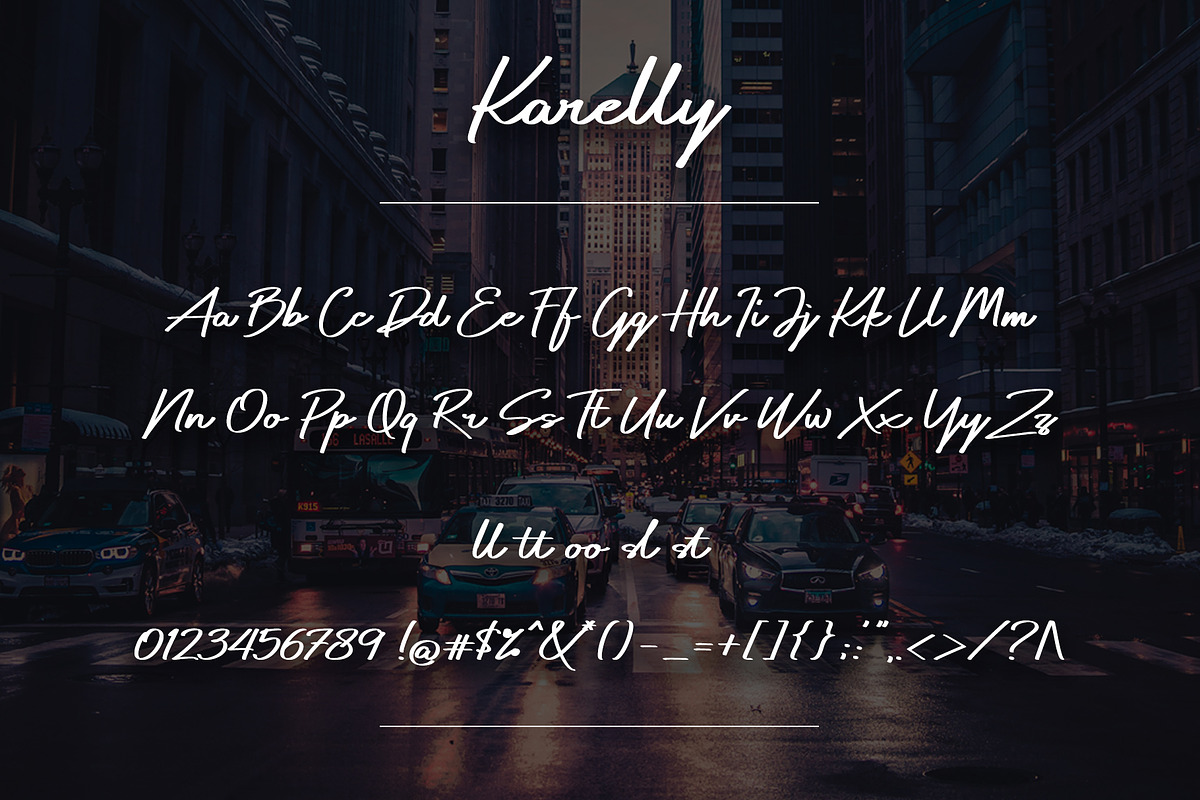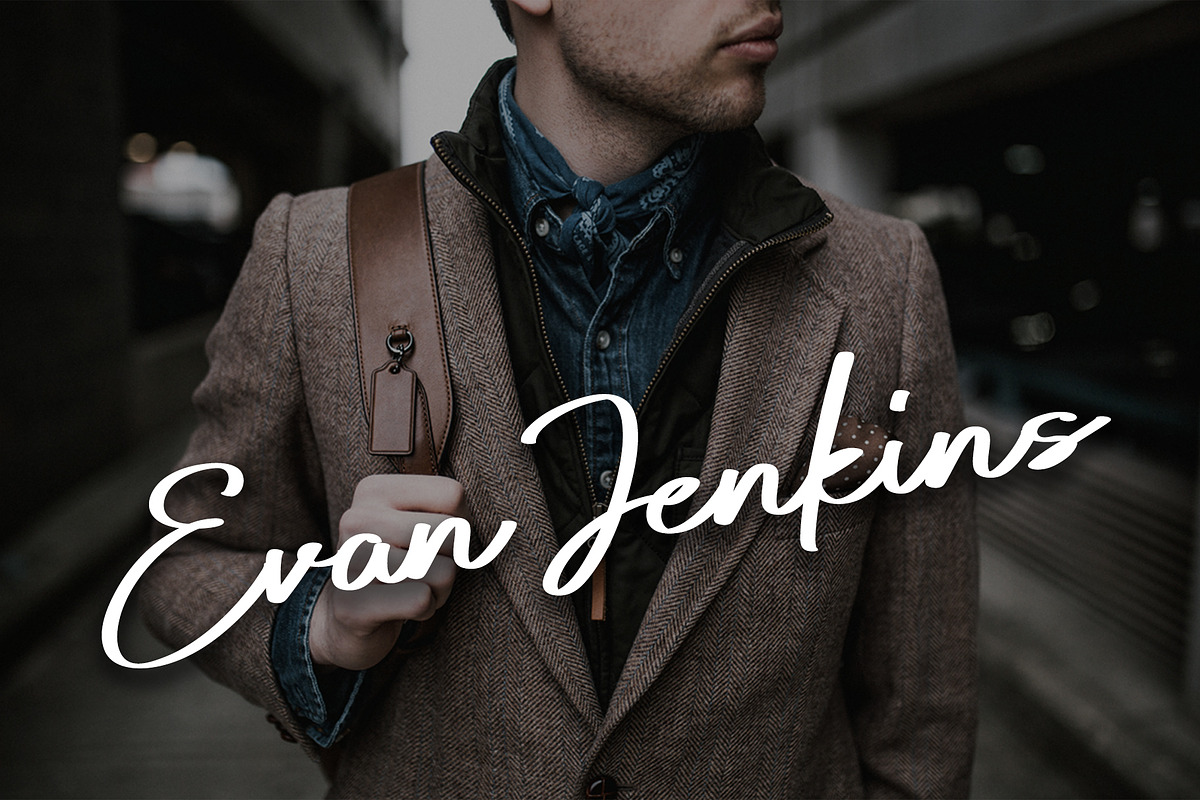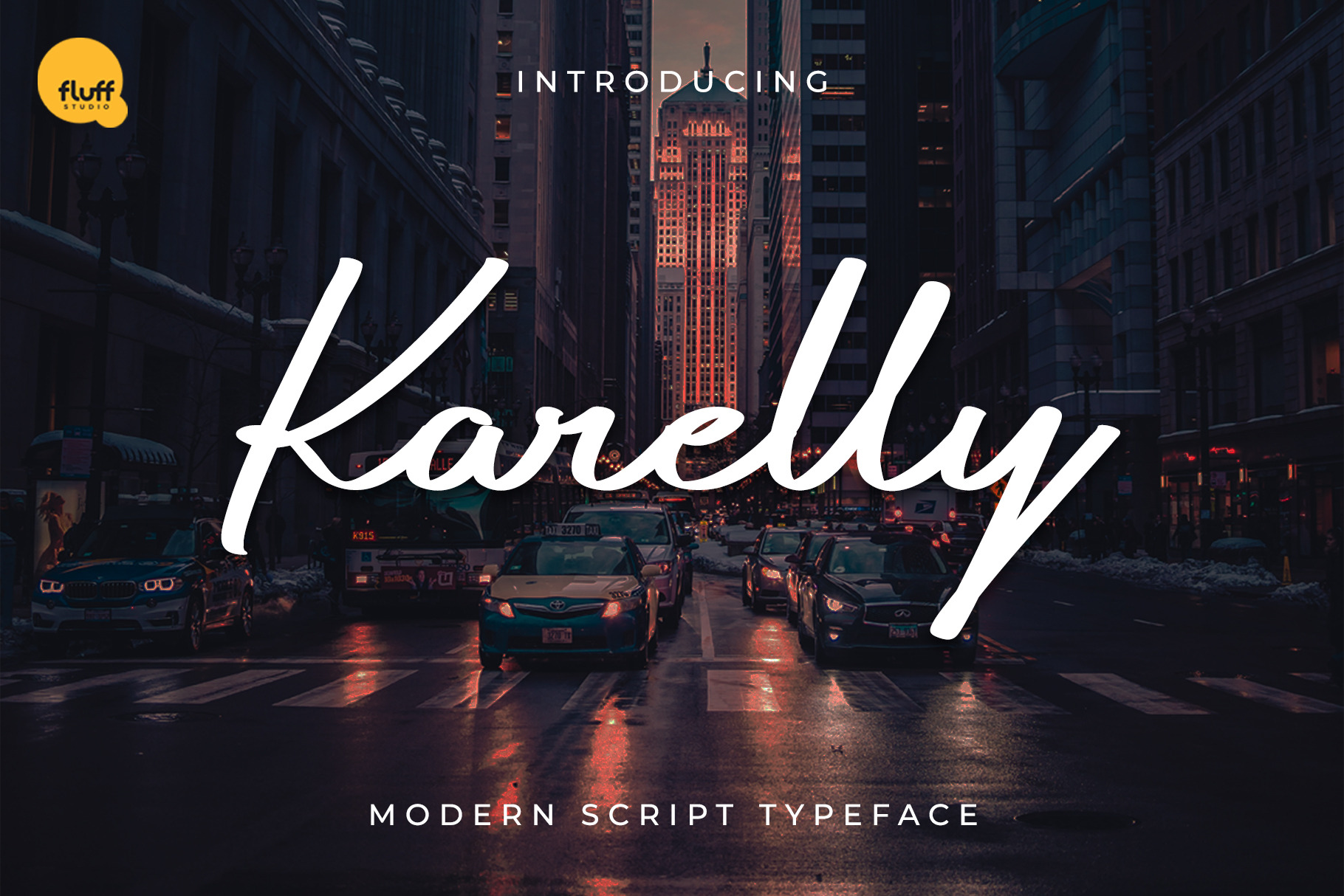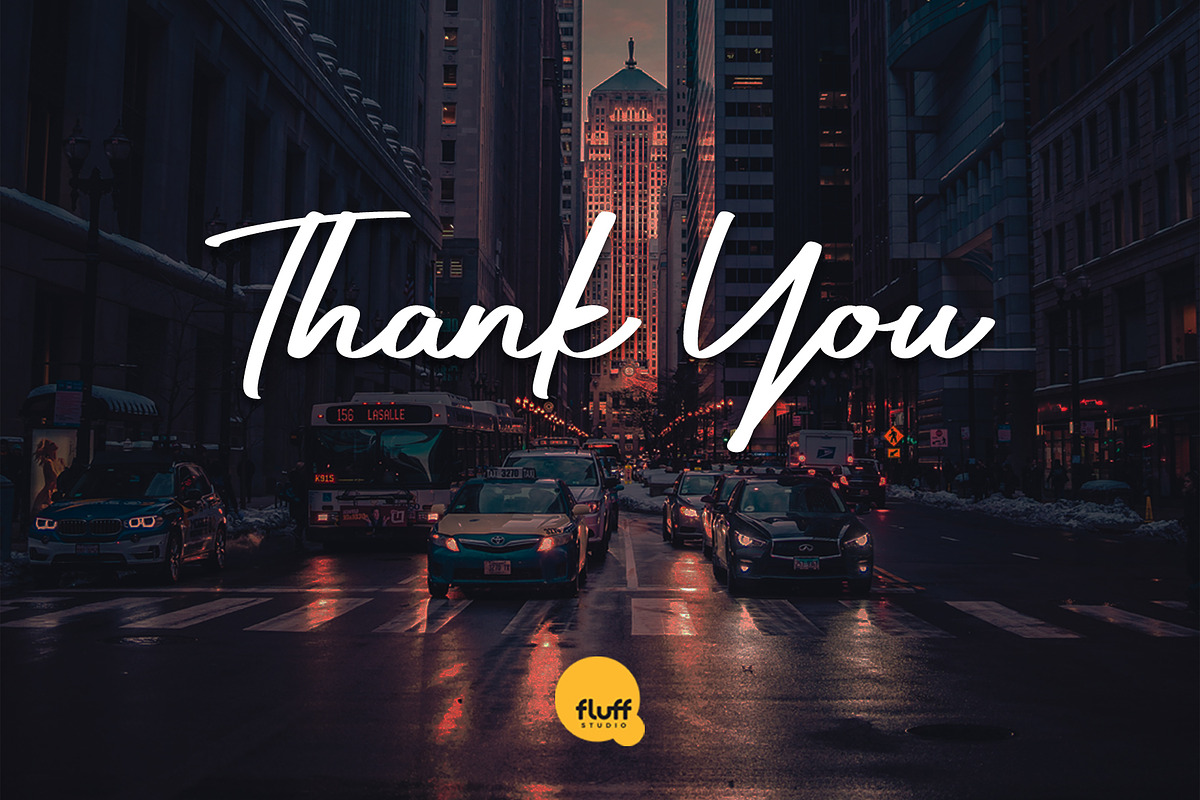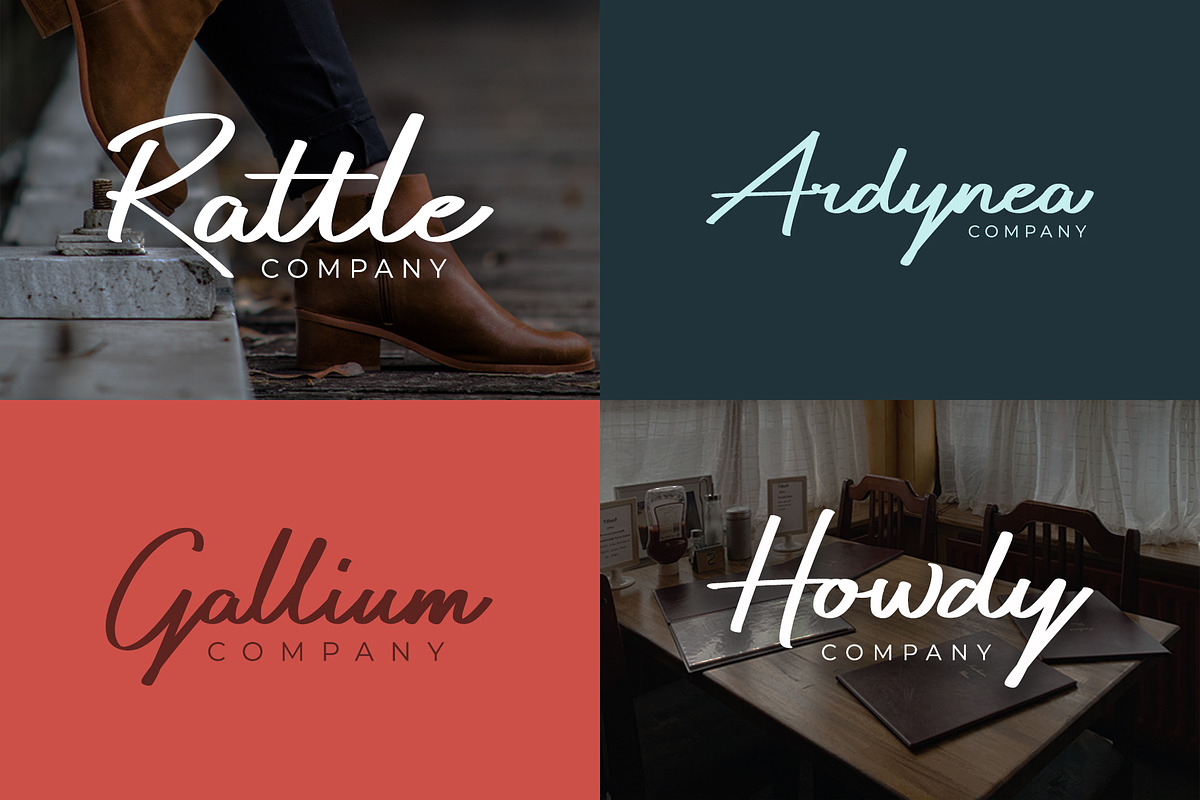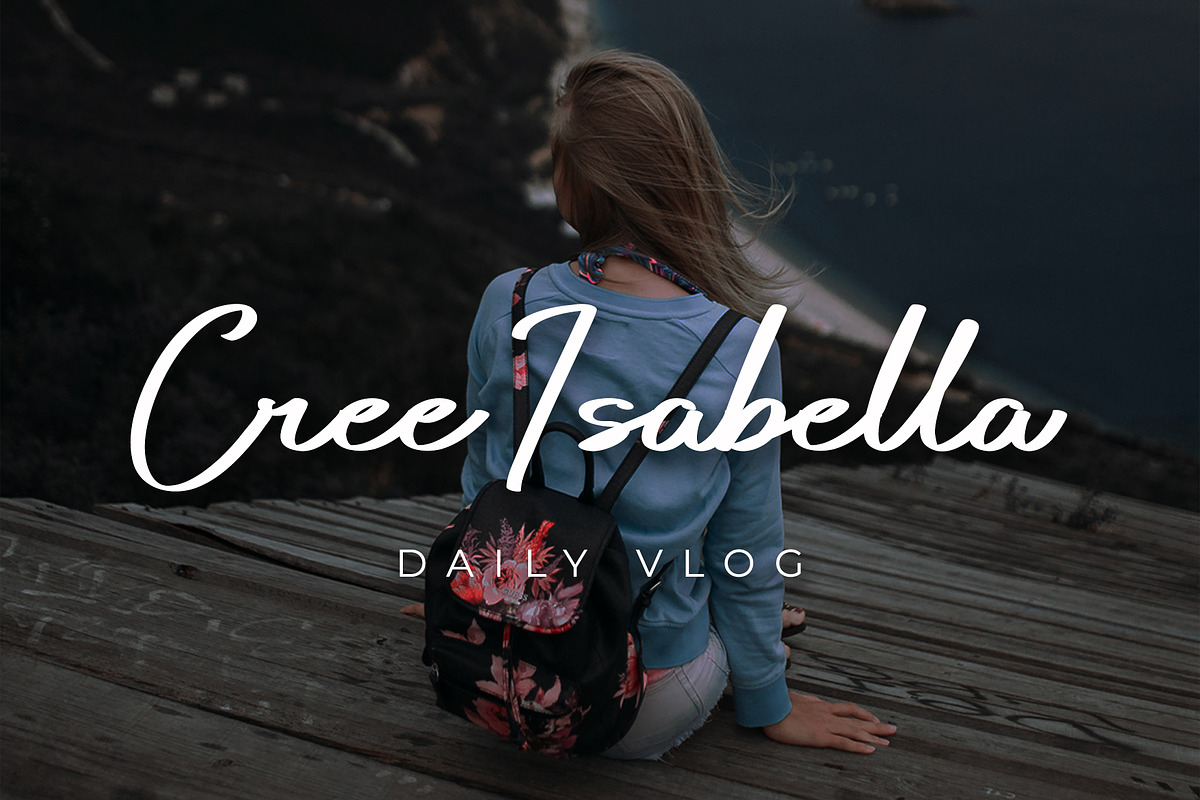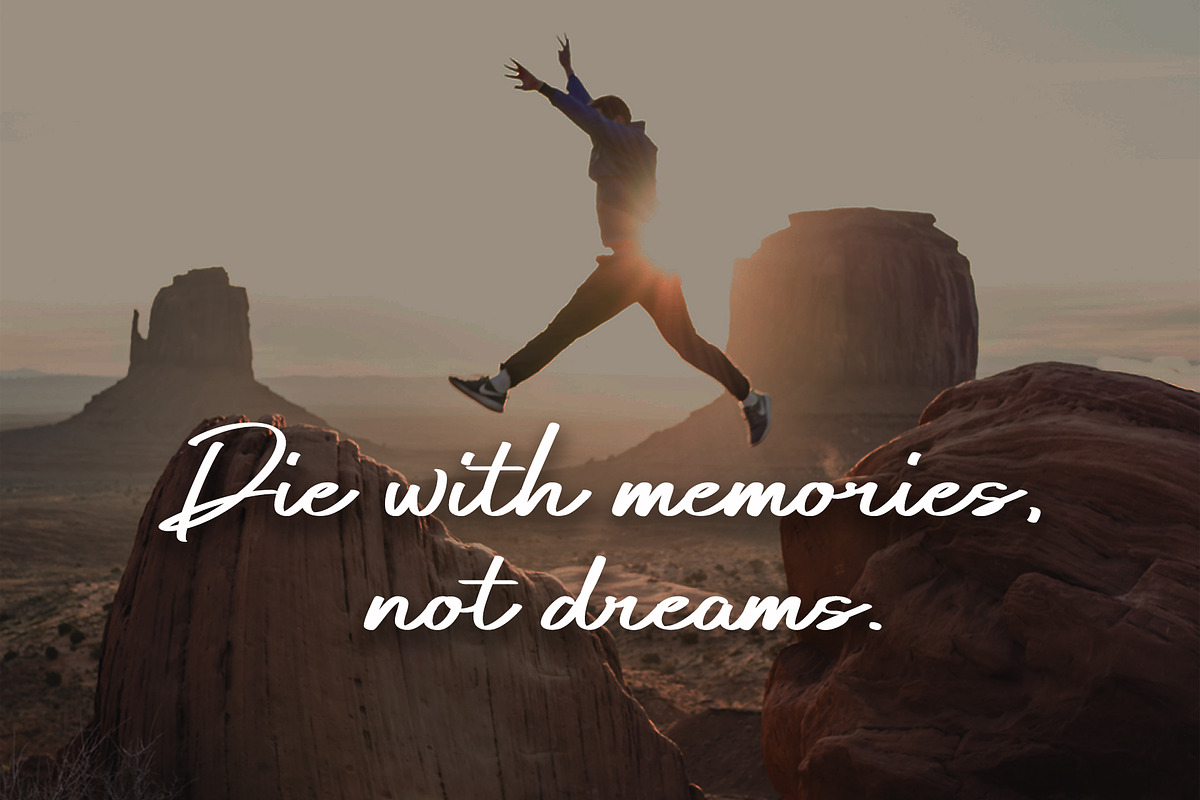
Karelly - Modern Script Typeface
Karelly Modern Script Typeface
Perfect for Logotype, brands logo, clothing, fashion, creative industry, signature, headline/title on poster, brochure, packaging, wedding invitation, quotes, magazine, social media etc.